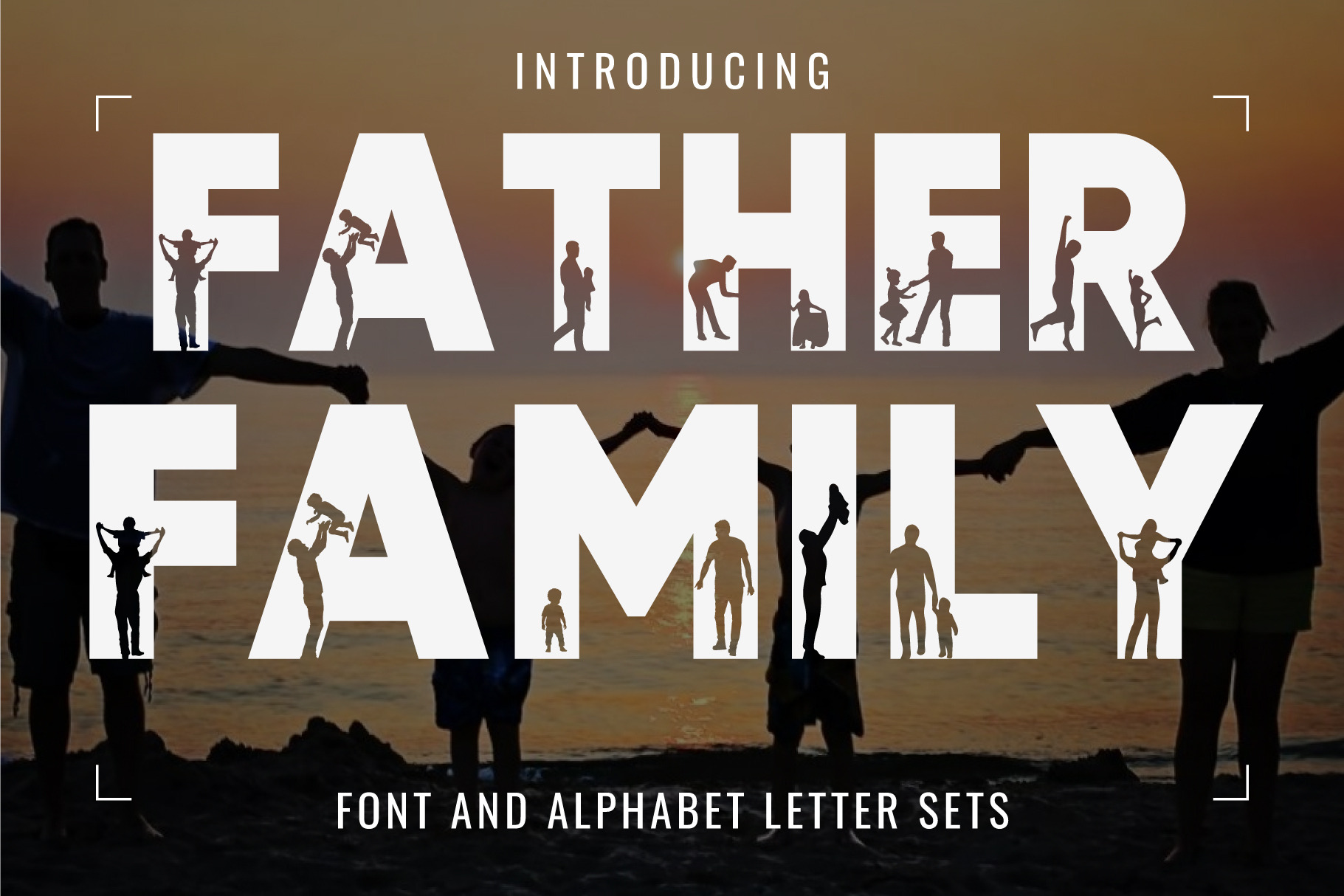
Father Family Font
Introducing the “Father Family Font” – a captivating black and white color font featuring Father & Family silhouette patterns, which is perfect for all your Father’s Day-themed projects. You can use it to design products such as banners, content, mugs, cards, shirts, stationery, social media posts, and more. Add it confidently to your projects, and you will love the results.
FEATURE:
- This entire font is capitalized.
- Only the English language is available.
- Letters: A B C D E F G H I J K L M N O P Q R S T U V W X Y Z.
- Numbers: 0 1 2 3 4 5 6 7 8 9.
- Excluding punctuation.